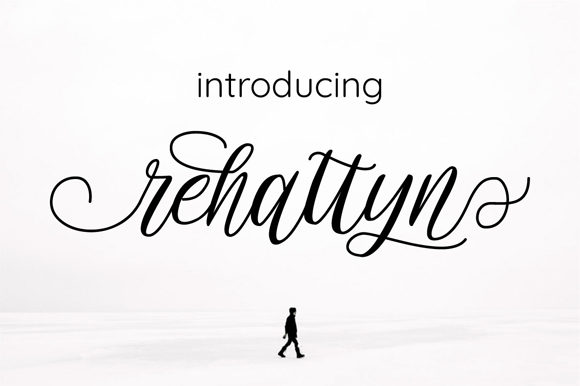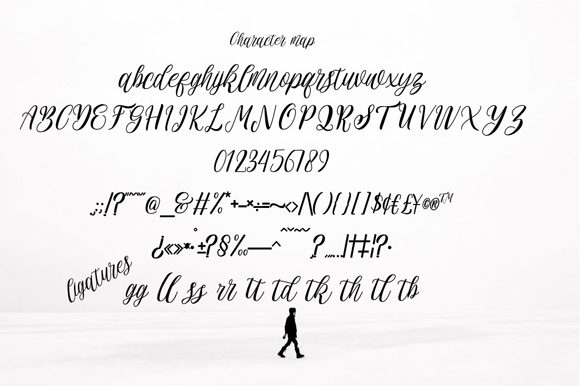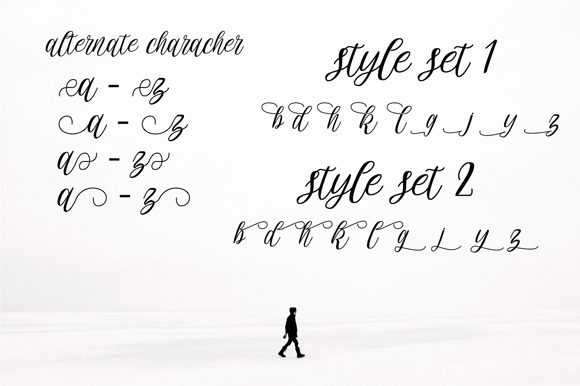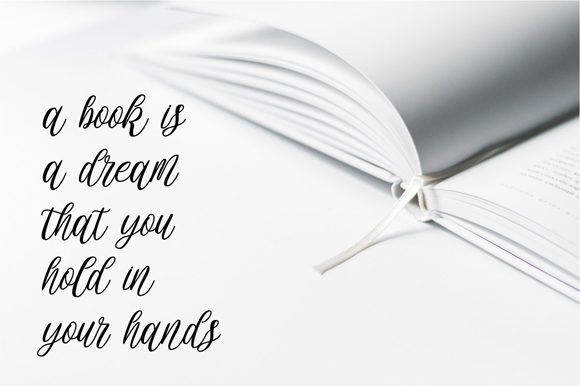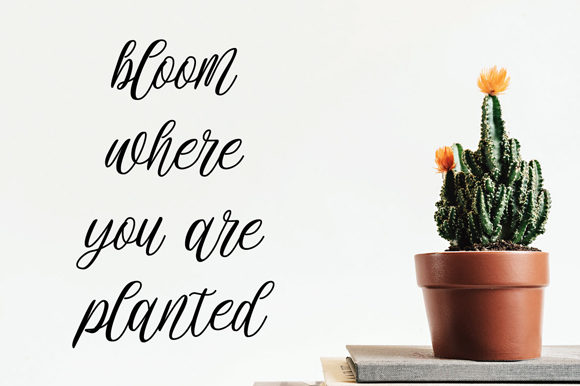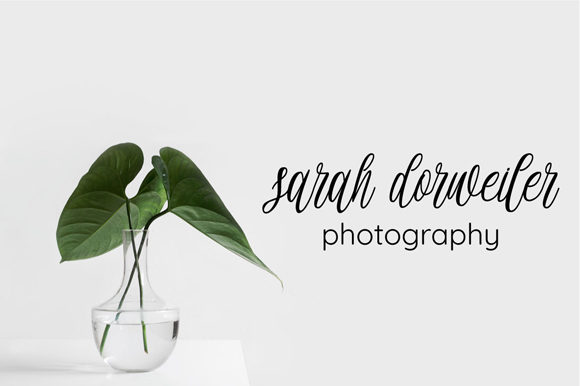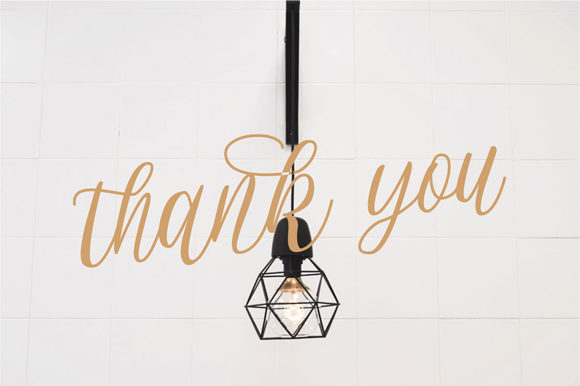
Rehattyn Font
About Rehattyn Font
The Rehattyn is a modern, bouncing script font. Its hand lettered touch is perfect for greeting cards, quotes, branding, social media, magazines, and much more!